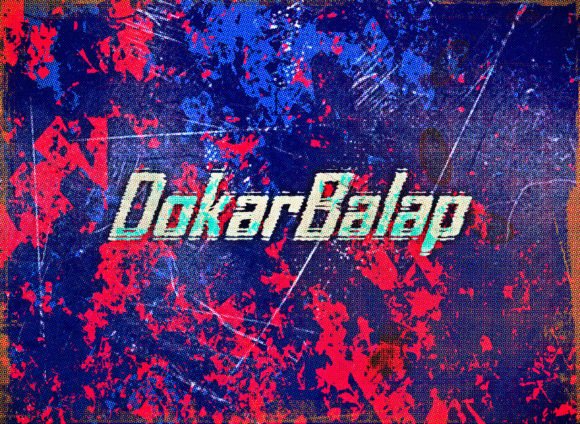
Journey into the realm of Dokarbalap, a display font family that ignites your creativity with its raw and edgy charm. Crafted by the ingenious minds at yogart, Dokarbalap is a font collection that exudes a captivating combination of strength and elegance, inviting you to unleash your imagination and leave an unforgettable impression.
Immerse yourself in a world of bold and daring typography, where Dokarbalap's striking presence commands attention. Its sharp, angular strokes evoke a powerful visual impact that demands to be noticed, while its unique details add an artistic flair that sets it apart from the ordinary.
Whether you're a designer, an artist, or a creative professional seeking to make a statement, Dokarbalap is your ultimate weapon. Its versatility extends across a wide range of projects, from branding and logos to poster designs and social media graphics. Let Dokarbalap be your ally in creating designs that resonate with your audience, leaving a lasting impact that speaks volumes.
But Dokarbalap is not merely a collection of fonts; it's an experience. Its very essence embodies the spirit of adventure and exploration, inviting you to push the boundaries of your creativity and embark on a journey of self-expression. As you wield the power of Dokarbalap, you'll discover a newfound confidence in your artistic abilities, unlocking a world of possibilities where your imagination reigns supreme.
Don't settle for mundane fonts that blend into the background. Embrace the power of Dokarbalap and unleash your inner artist. Let your designs radiate with an aura of originality and passion, captivating your audience and leaving them in awe. Discover the limitless possibilities that await you within the realm of Dokarbalap, where creativity knows no bounds.